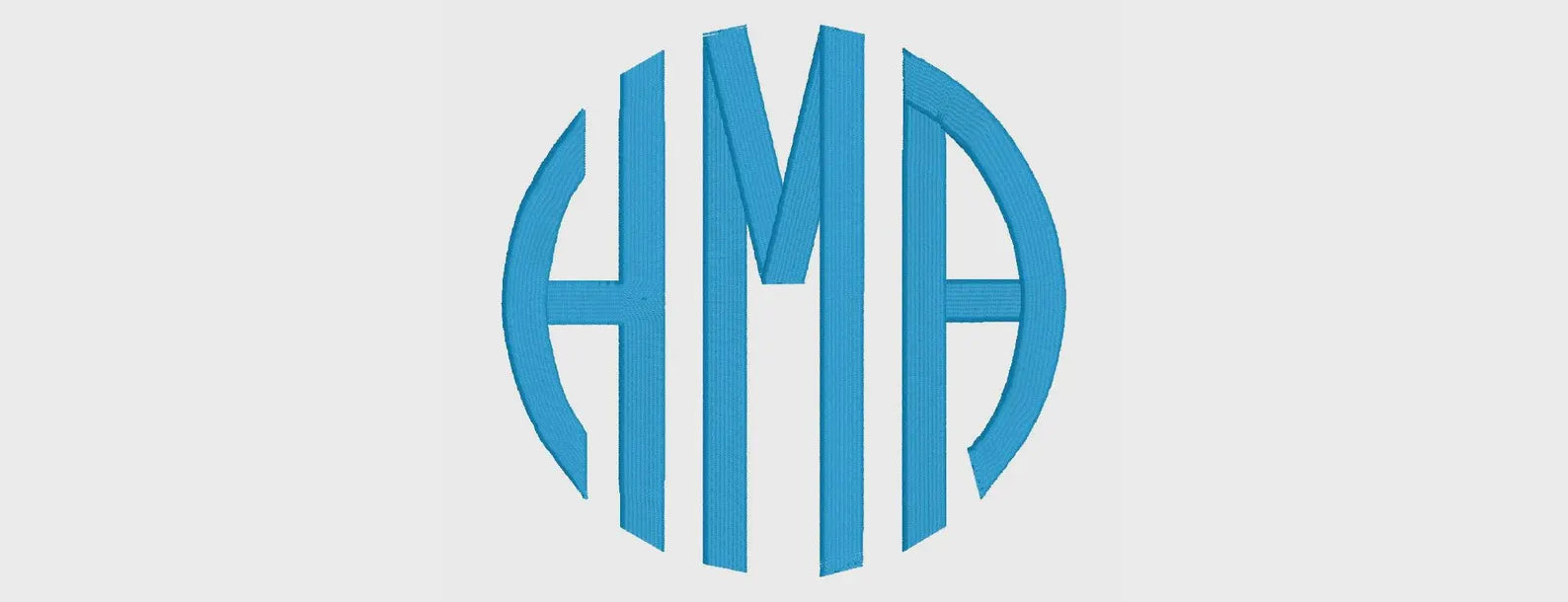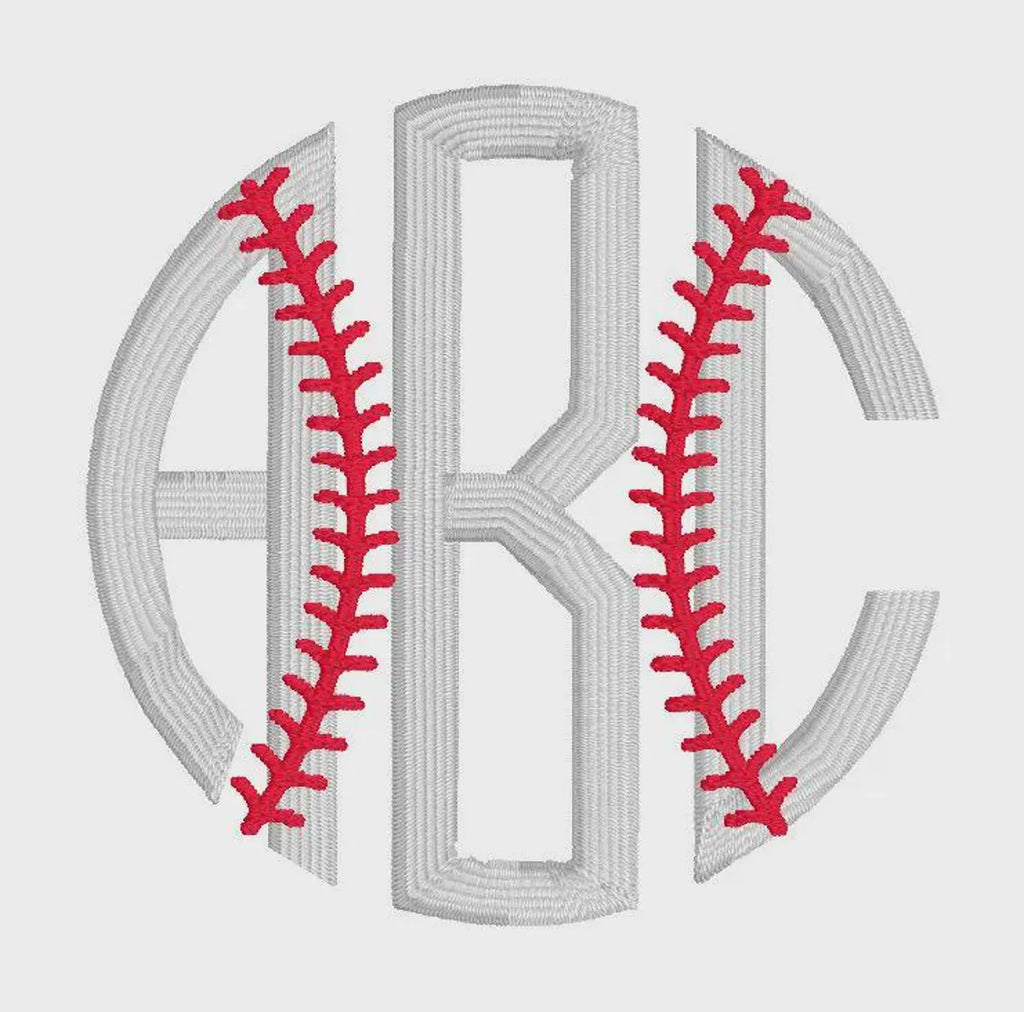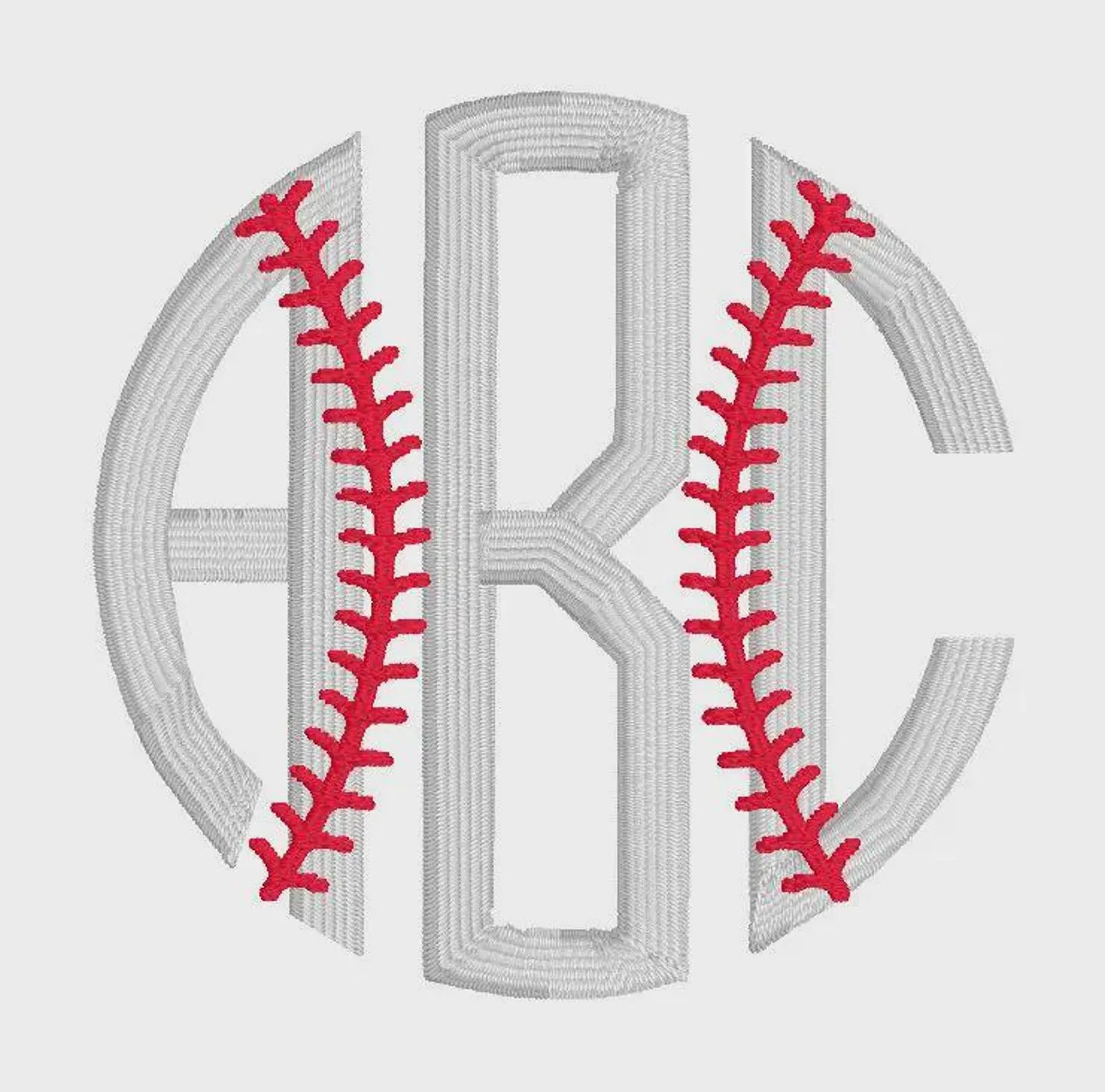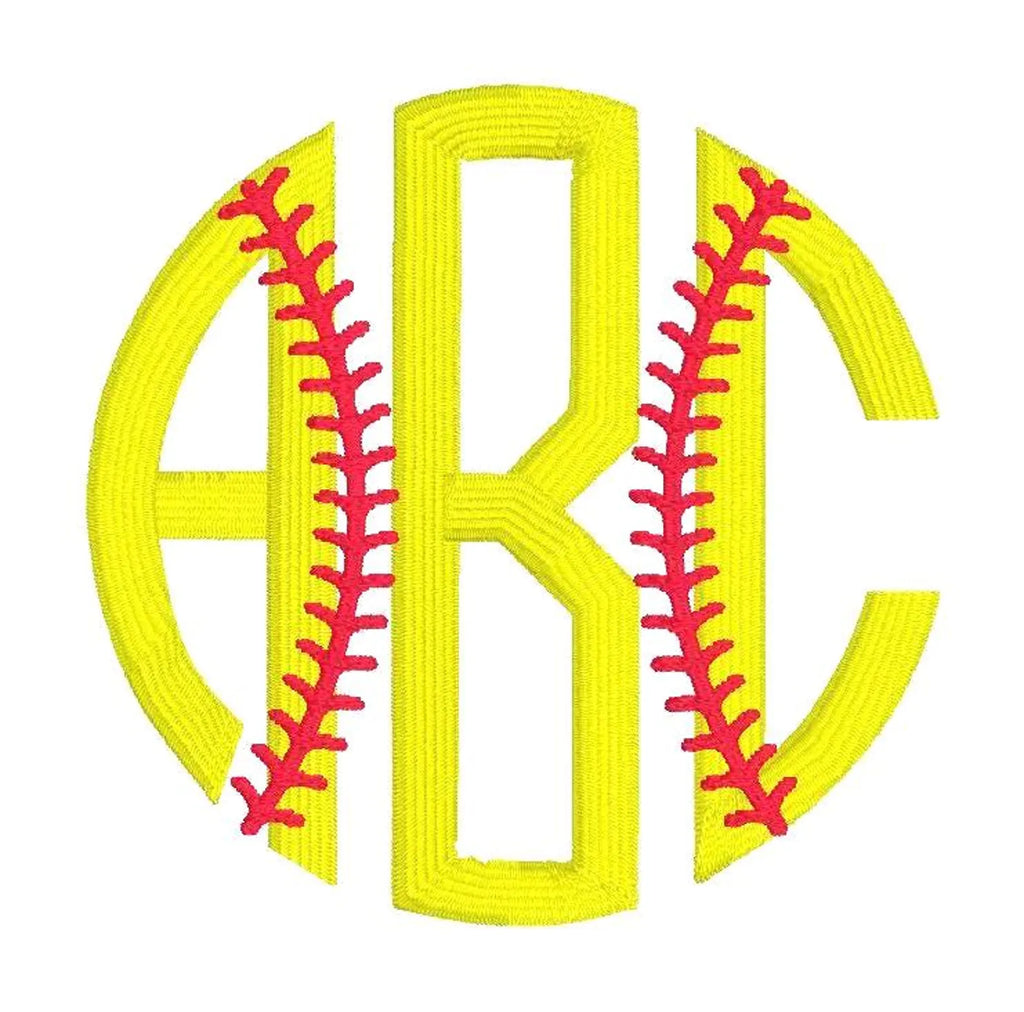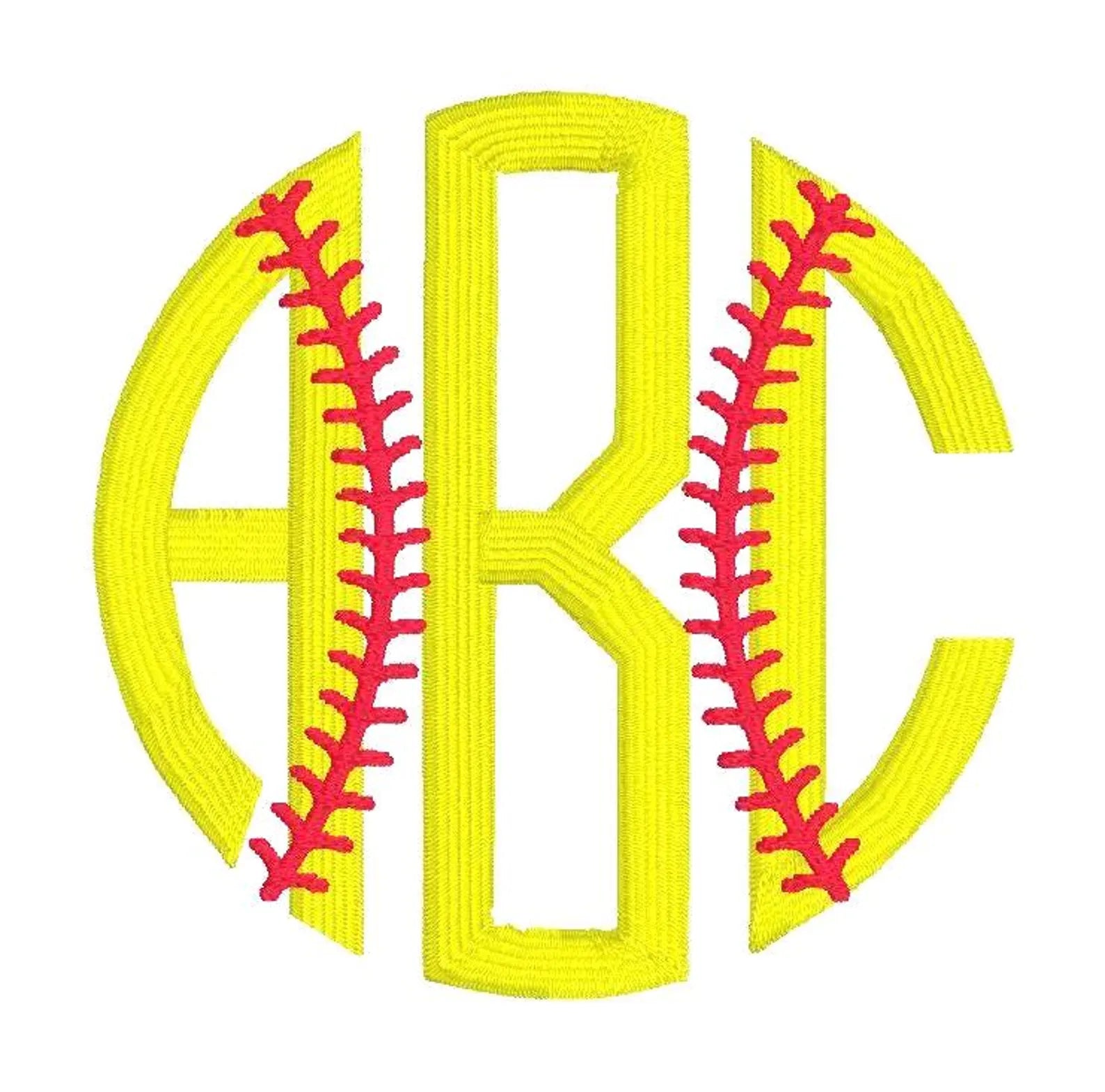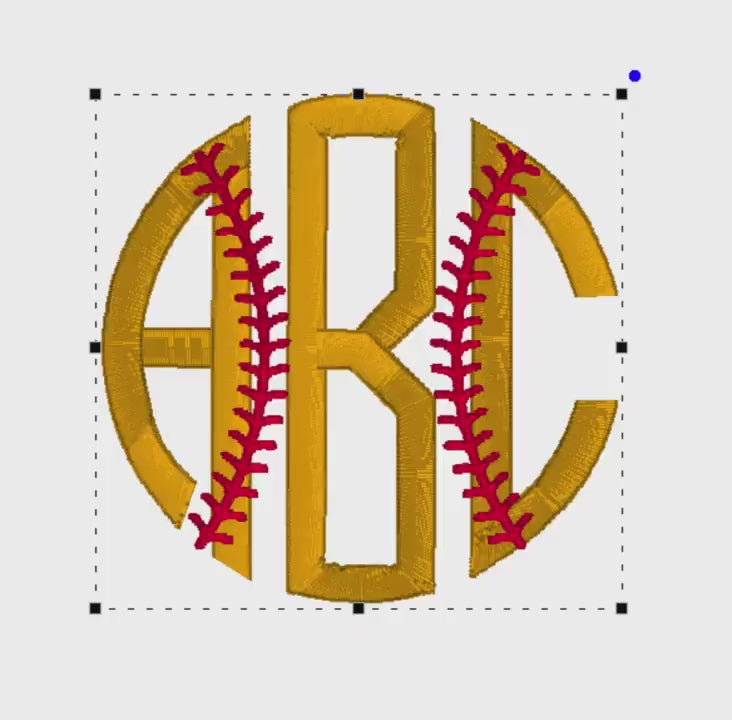
Softball Monogram Embroidery File: Baseball Stitches + .bx Circle Font (Digital Download)
Softball Monogram Embroidery File Includes Baseball Stitches in 7 Formats for Instant Download and *.bx* Circle Font Only for Embrilliance
Natural Circle Monogram Font
Baseball/Softball Stitches - Created at 3.25" perfect for any left chest monogram!